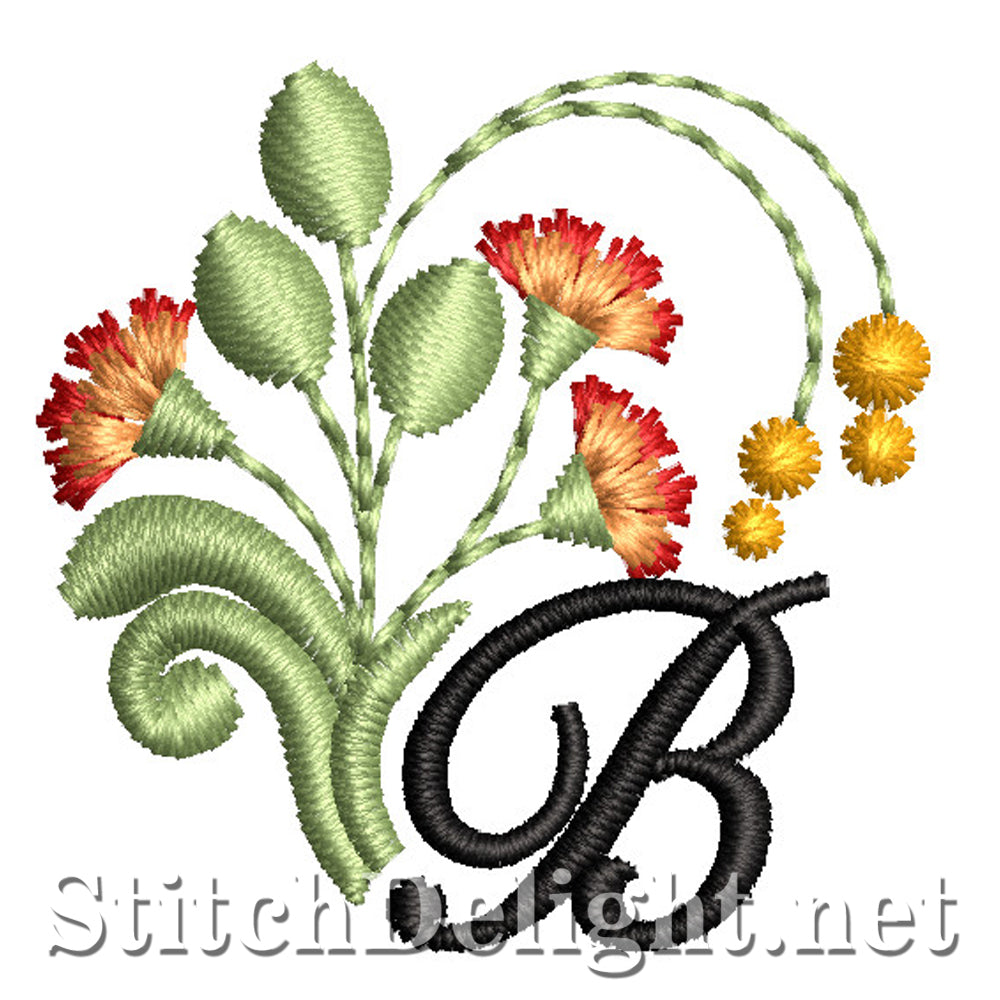
SDS1749 Flamboyant Font B
A small font of just over 1 inch in height, perfect for those small projects or longer text. The coordinating font is SDS1750 which is under half inch in size